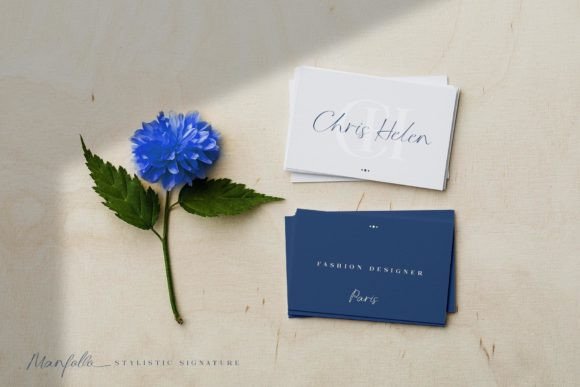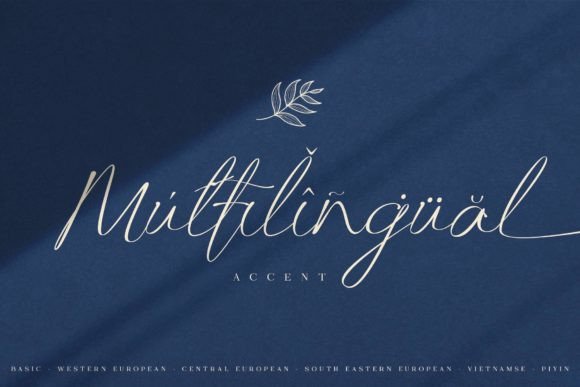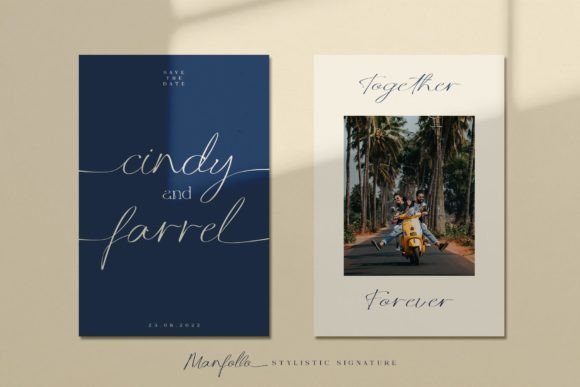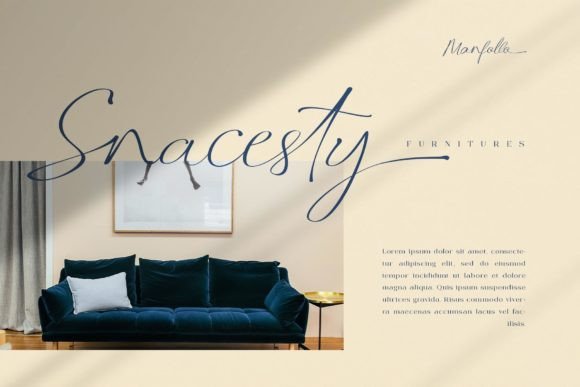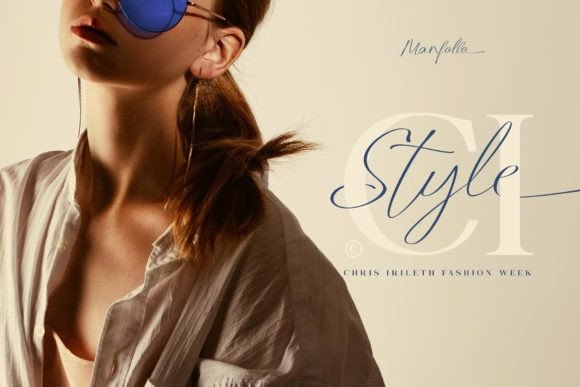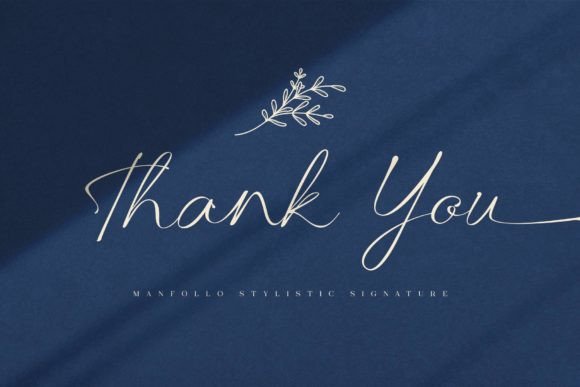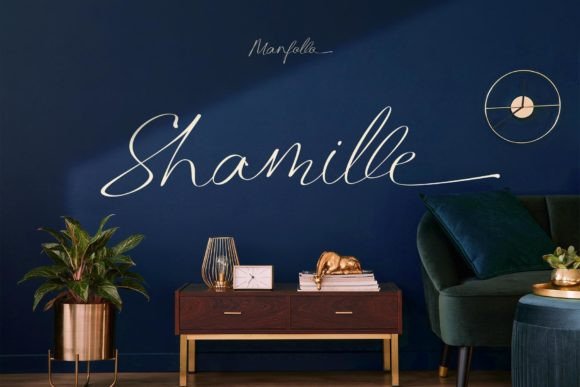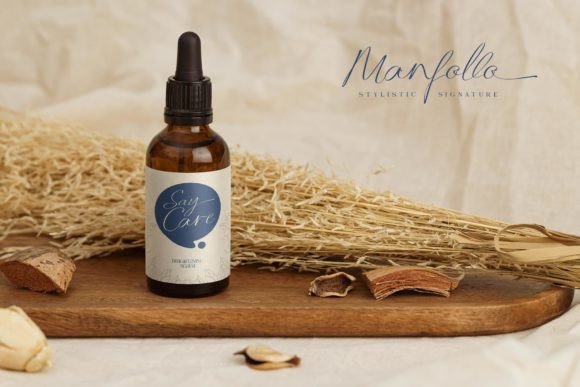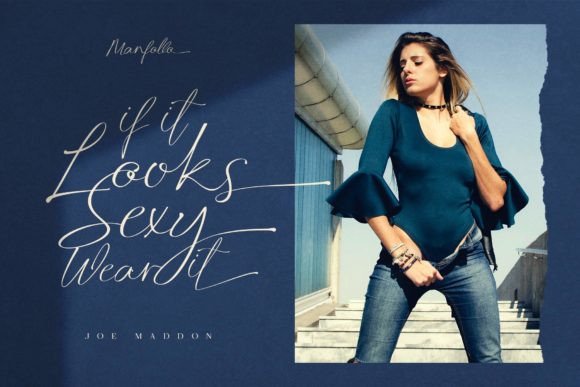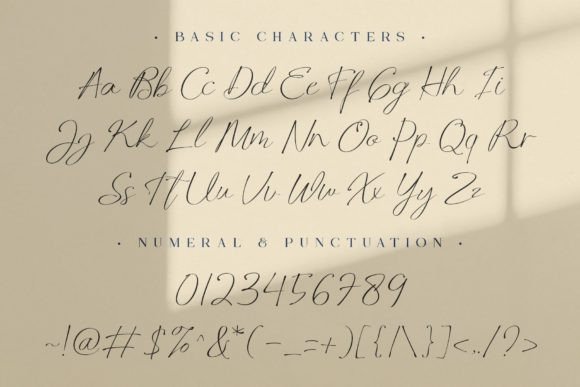
Manfollo Font
About Manfollo Font
“Manfollo” is a font that effortlessly blends charm and elegance, creating a visually stunning and versatile typeface. Its graceful appeal makes it particularly well-suited for a wide range of design applications, including wedding invitations, thank you cards, quotes, greeting cards, logos, business cards, and any other design project in need of a sophisticated handwritten touch.
The allure of “Manfollo” lies in its ability to exude a sense of charm and elegance simultaneously. Each character is thoughtfully crafted to convey a feeling of refinement and beauty, making it perfect for projects where you desire a touch of sophistication. Imagine using “Manfollo” for a wedding invitation, where the font’s elegant handwritten style sets the stage for a truly memorable celebration of love.
For quotes, greeting cards, logos, and various branding elements, “Manfollo” adds a touch of class and grace to your content. It has a timeless quality that can make your projects feel polished and memorable.
Furthermore, “Manfollo” is highly adaptable and legible, ensuring that your text remains clear and easily readable, even in intricate or decorative designs. This aspect is particularly valuable when conveying important messages or brand identity in your projects.
In summary, “Manfollo” is more than just a font; it’s a design asset that brings a harmonious blend of charm and elegance to your creative work. Its sophisticated handwritten style is suitable for a variety of applications, and its ability to add a touch of refinement and beauty sets it apart. With “Manfollo” in your font collection, your design projects will emanate a sense of timeless sophistication that leaves a lasting impression.